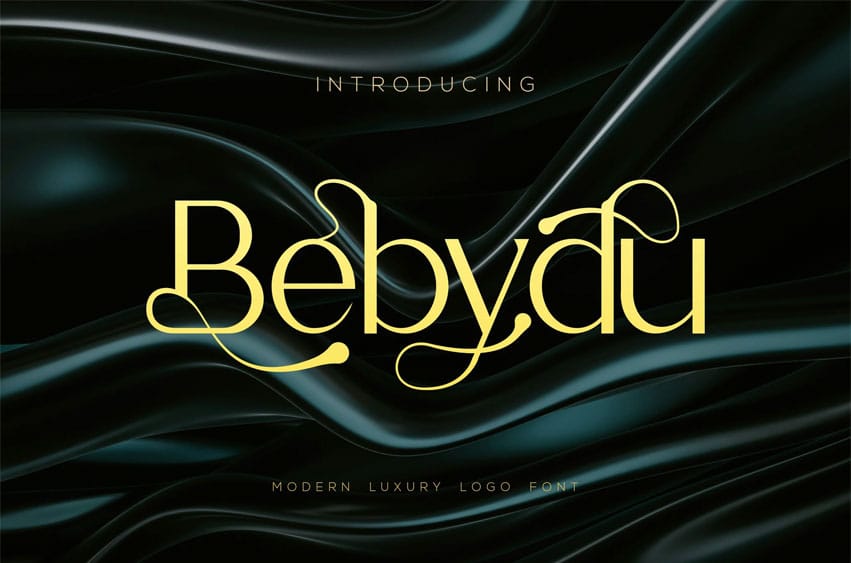
Bebydu Font Serif Decorative Elegant Logo Font is an awesome and authentic display font.
- Number & Symbol
- UPPERCASE, lowercase
- Alternative & Legatures